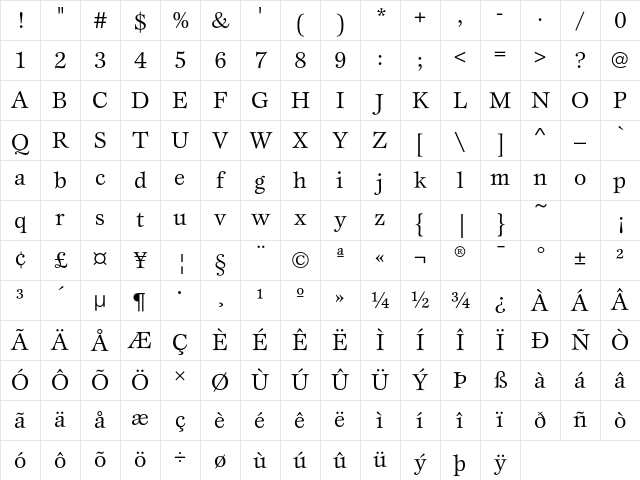
EspritEF Book
EspritEF Family
EspritEF Book
Design Context for EspritEF
EspritEF is a composed and adaptable typeface that performs quietly and consistently across a wide range of design contexts.